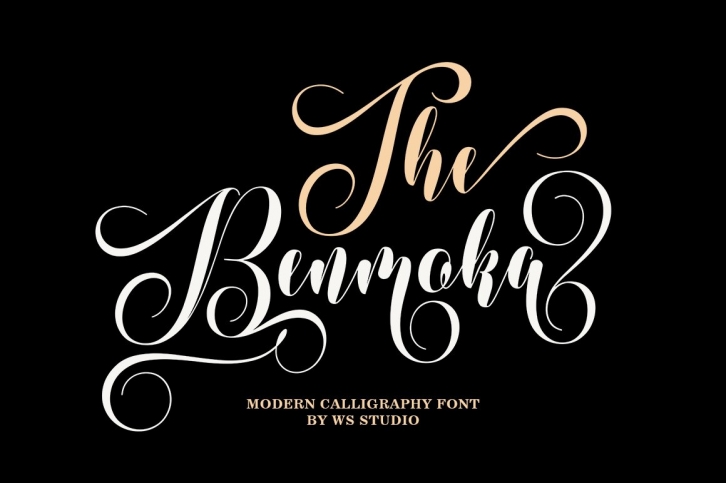
The Benmoka is a new modern script font with an irregular base line. Trendy and feminine style. Sweet lady Script looks beautiful on wedding invitations, thank you cards, quotes, greeting cards, logos, business cards and more. Perfect for use in ink or watercolors. Includes initial and final letters, alternatives, binders and multi-language support.